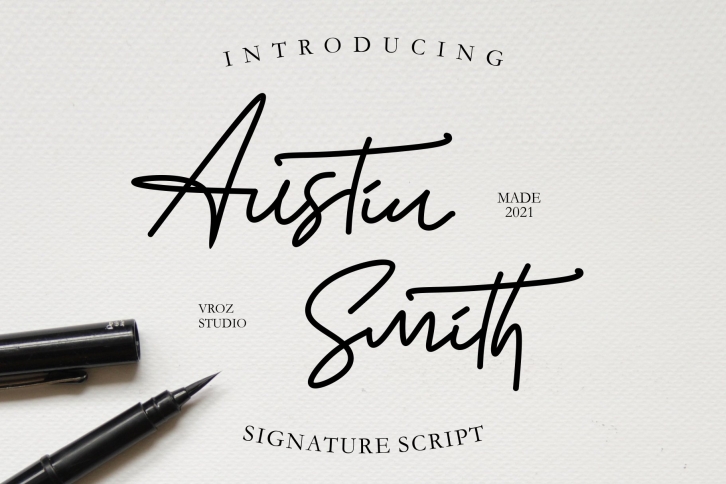
Austin Smith - Signature Script FONT Download
Austin Smith - Signature Script Font Download
Austin Smith is a beautiful font that was designed by Vroz Studio. It's a great choice for designers and creatives who need such a font. It was released on January 27, 2021 and the file size is 17.59 MB. Austin Smith may give a more youthful, expressive and casual look to your project. It is a very beautiful, refined, elegant, and high-quality font.